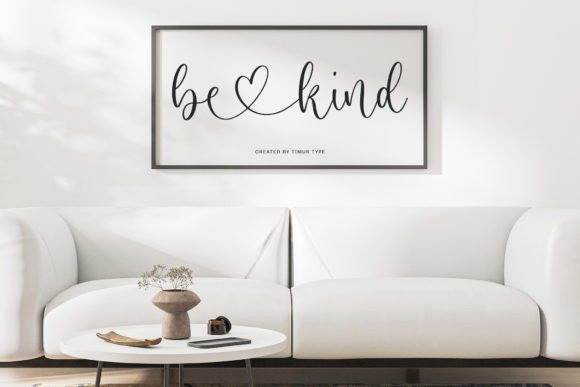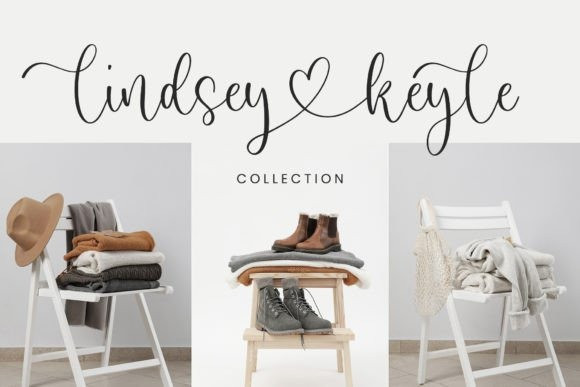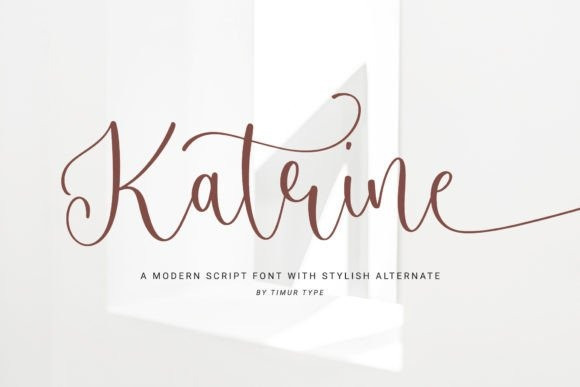
Katrine Font
IKatrine Script Font is a modern script font that is modern and fresh and will bring a warm and inviting feel to your business. Take advantage of the fonts and experience the magic for yourself.
Katrine is perfect for product packaging, branding project, magazine, social media, weddings, or just used to express words above the background.